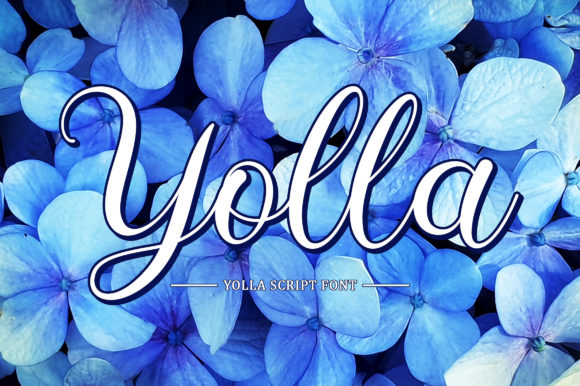
Enter the world of calligraphy with Yolla, an enchanting script font family that will leave you spellbound. Created by the talented SAMUKUR STUDIO, Yolla's contemporary touch captivates with its graceful strokes and modern appeal.
Indulge in the art of elegance as Yolla effortlessly transforms your designs. Its timeless beauty lends itself flawlessly to wedding monograms, invitations, branding, and any project seeking an air of sophistication.
Unleash your creativity and explore the endless possibilities of Yolla. With its amiable nature, this script font harmonizes with a wide range of styles, making it an indispensable tool in your design arsenal.
Embrace the charm of Yolla and let its captivating curves captivate your audience. This font is not just a collection of letters; it's a gateway to a world of artistic expression where your ideas take shape with undeniable grace.